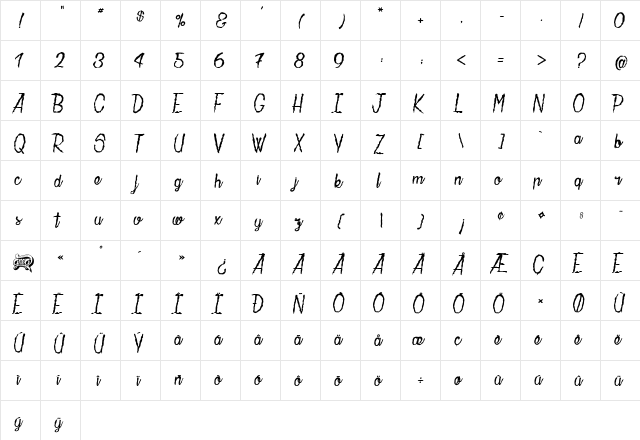
La Maison de Papier Regular
Design Context for La Maison de Papier Typeface
La Maison de Papier is a composed and adaptable typeface that performs quietly and consistently across a wide range of design contexts.